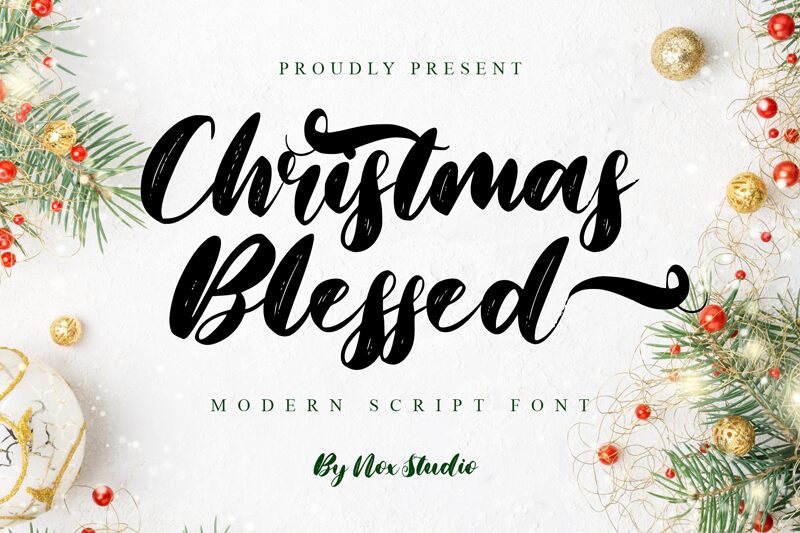
Christmas Blessed
Christmas Blessed font designed by Sarif Letter is a free brush calligraphy font that features elements inspired by modern calligraphy. Expressive, flowing, elegant, and artistic, this typeface has visual qualities with personal warmth infused into the letters. This adds a friendly yet luxury flavor and makes it mostly suitable for unique designs.
Use it on your applications such as handwriting posts or cards, wedding invitation cards, social media visuals, branding projects (logos), print products (shirt design), magazine layouts (headings), handwritten articles and blogs, book covers and even advertisements.